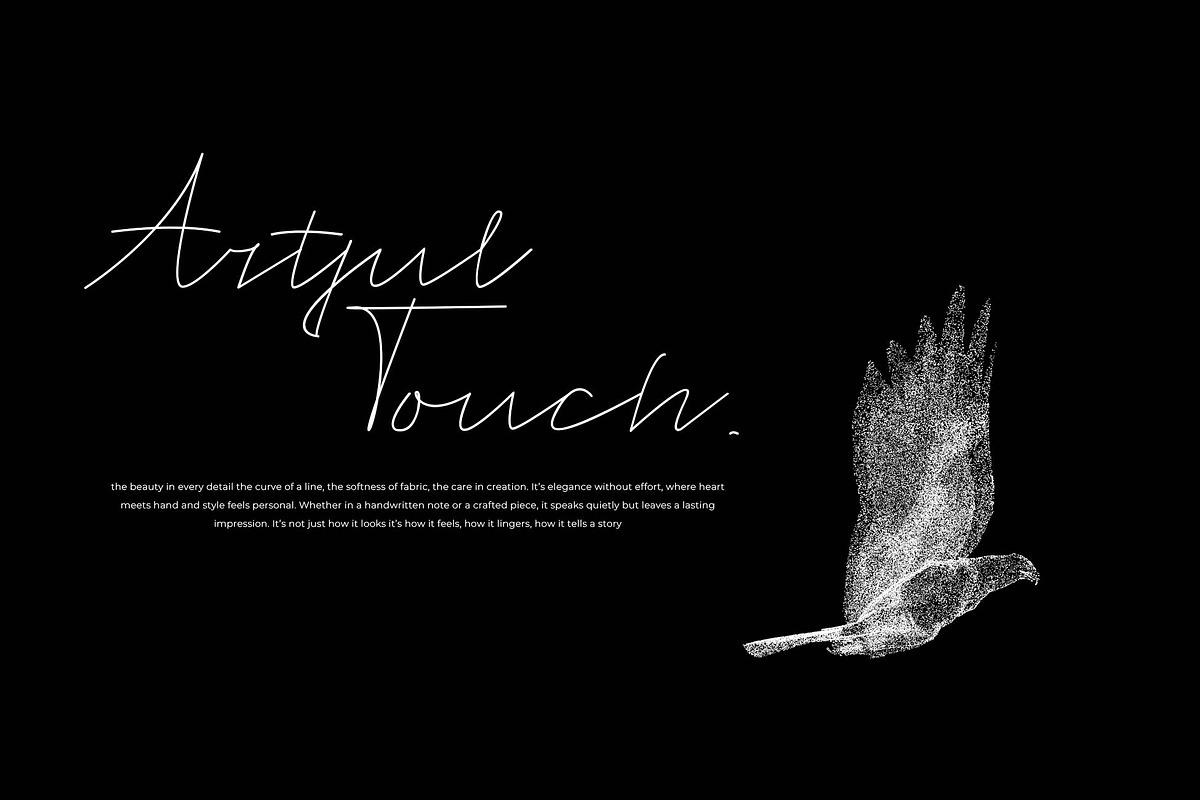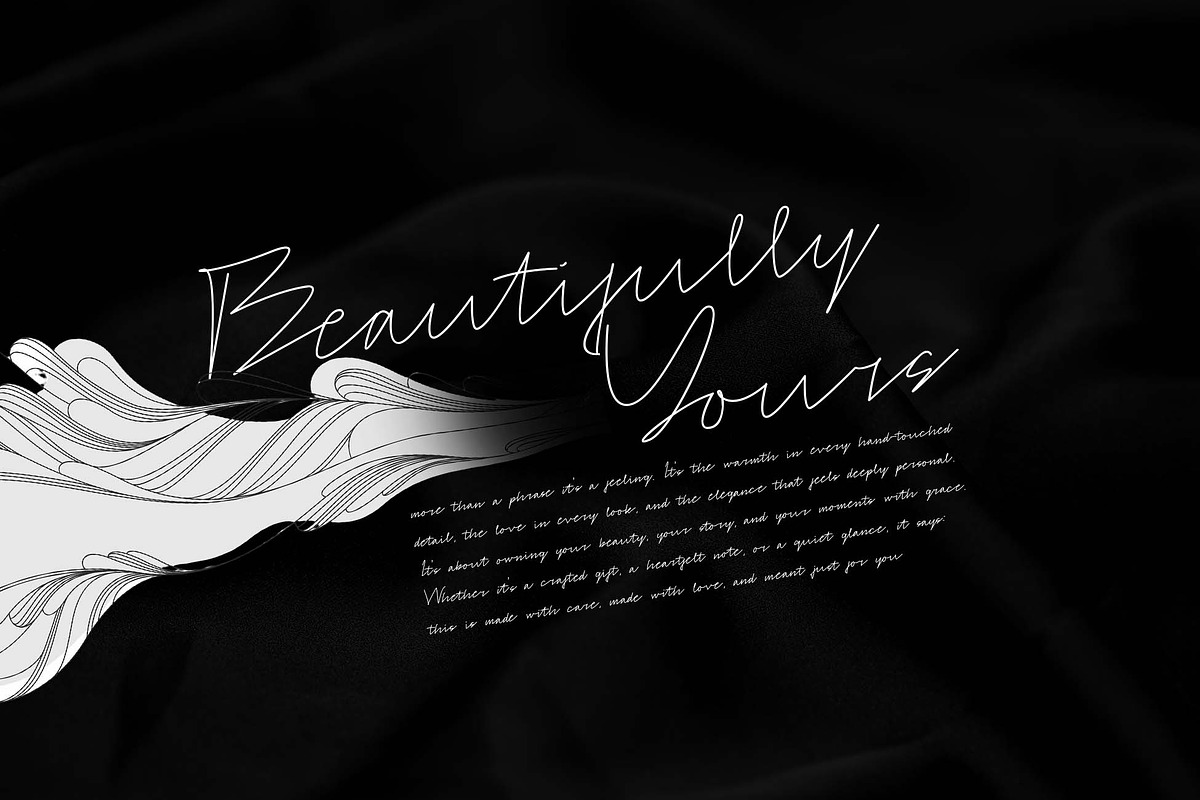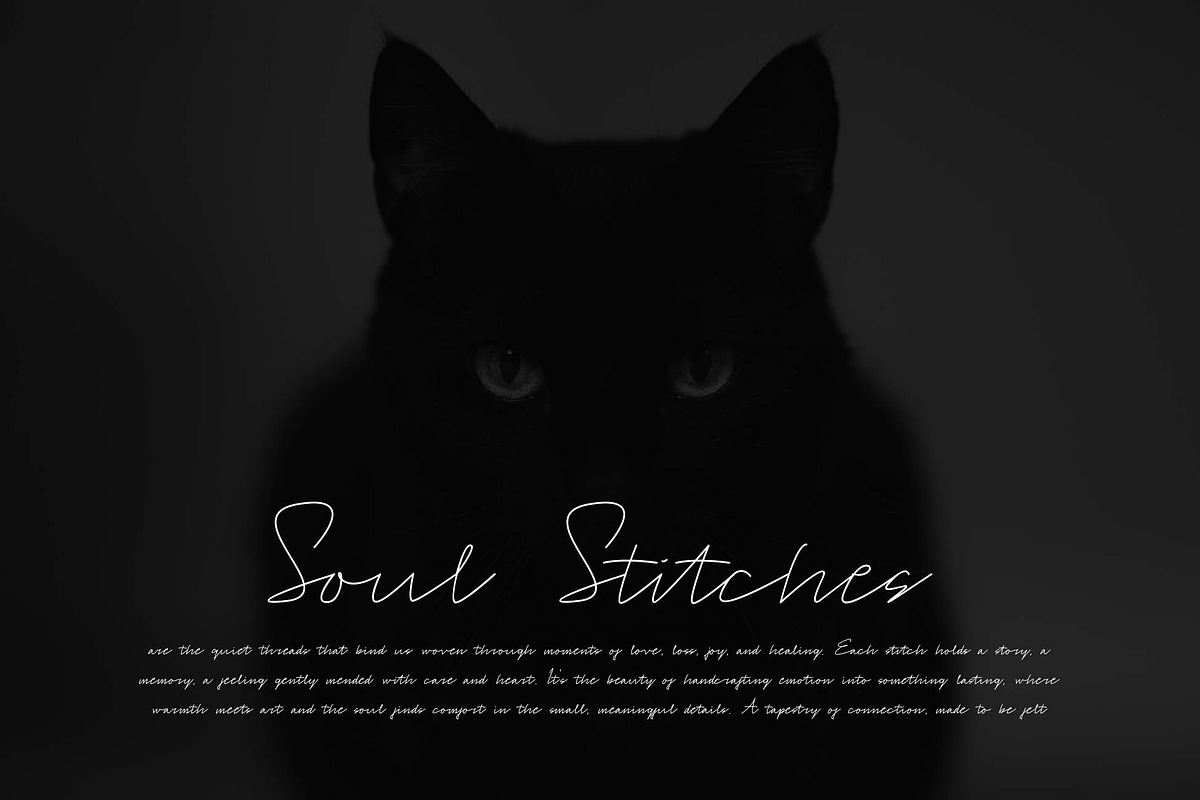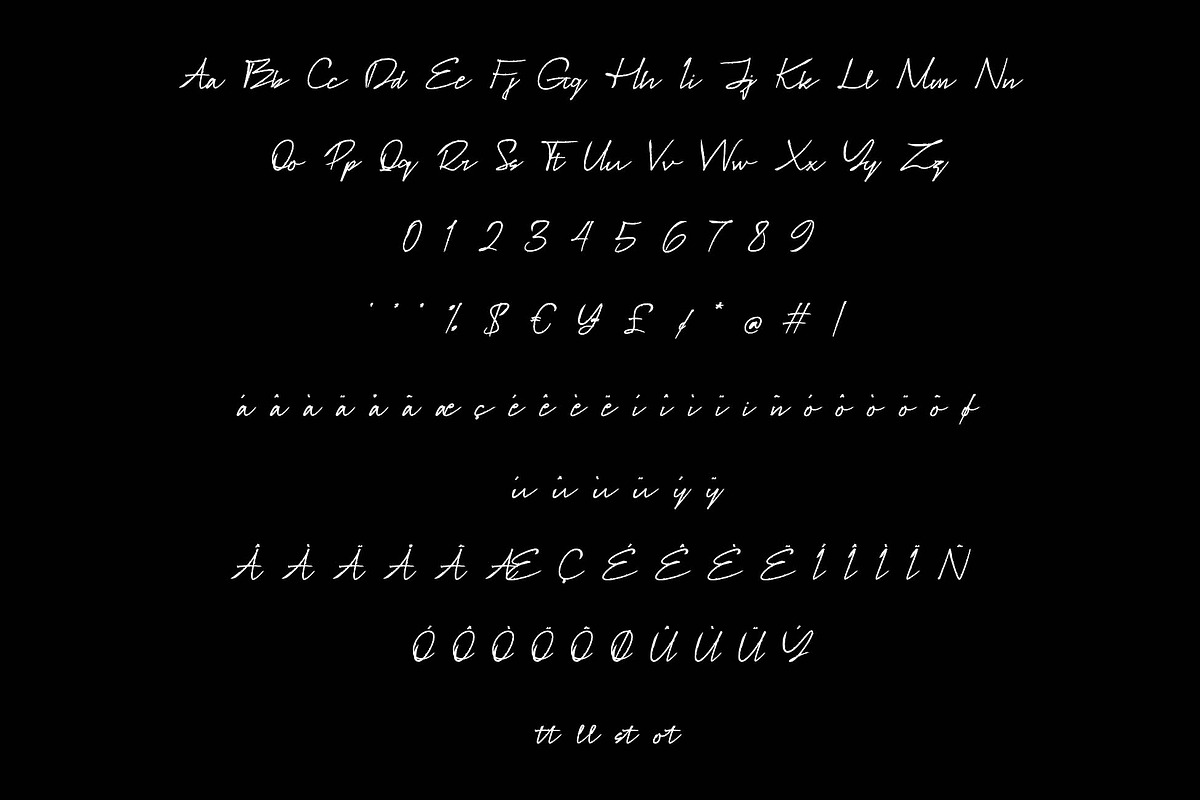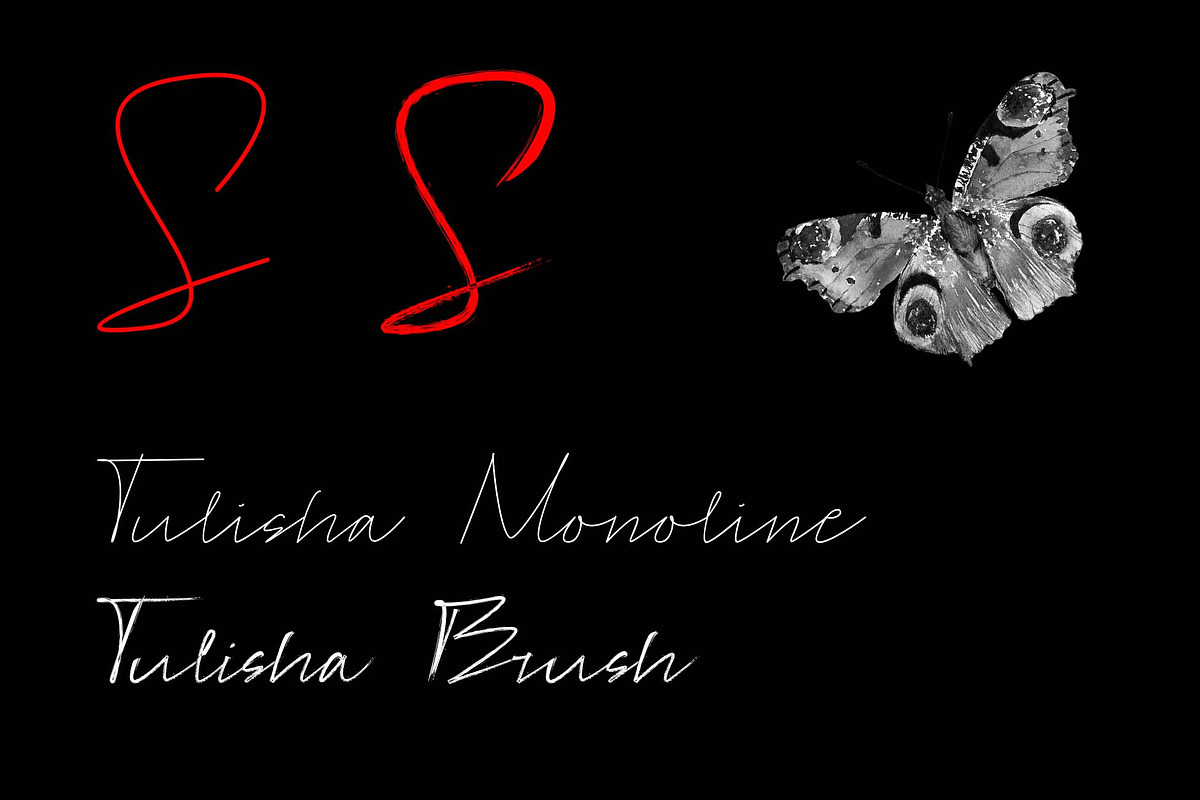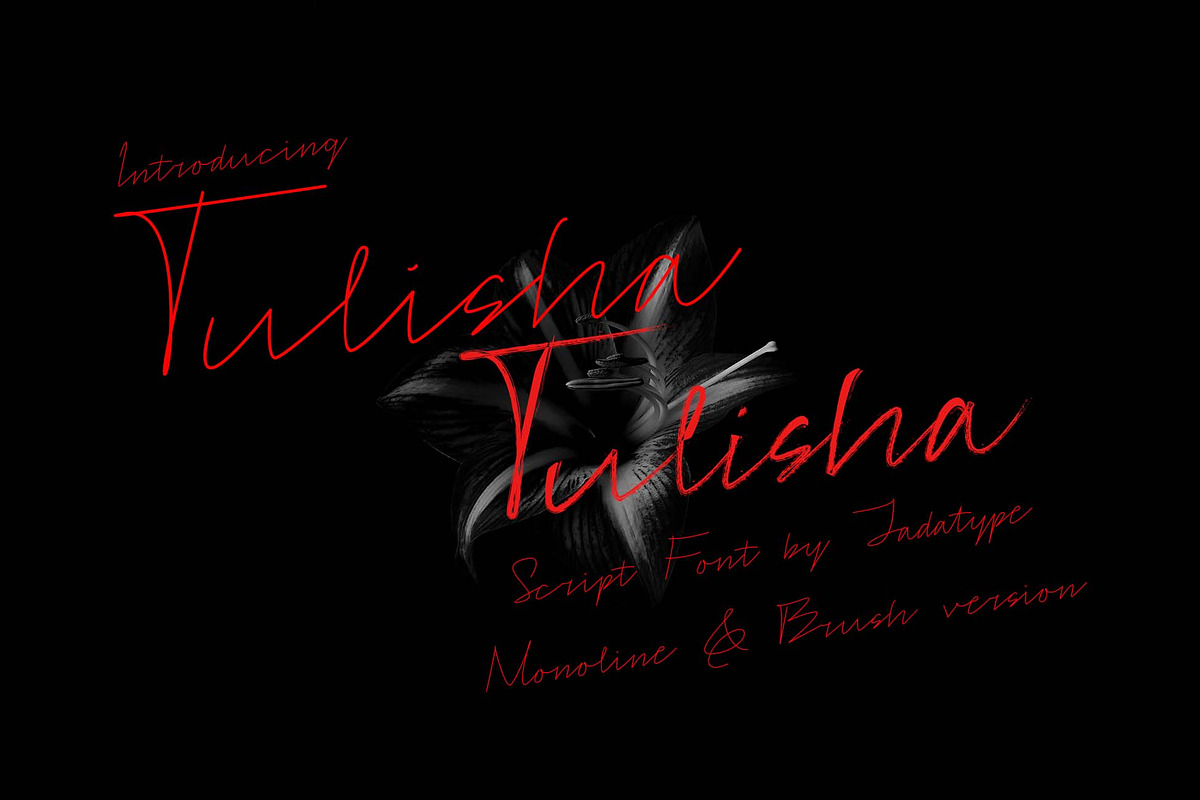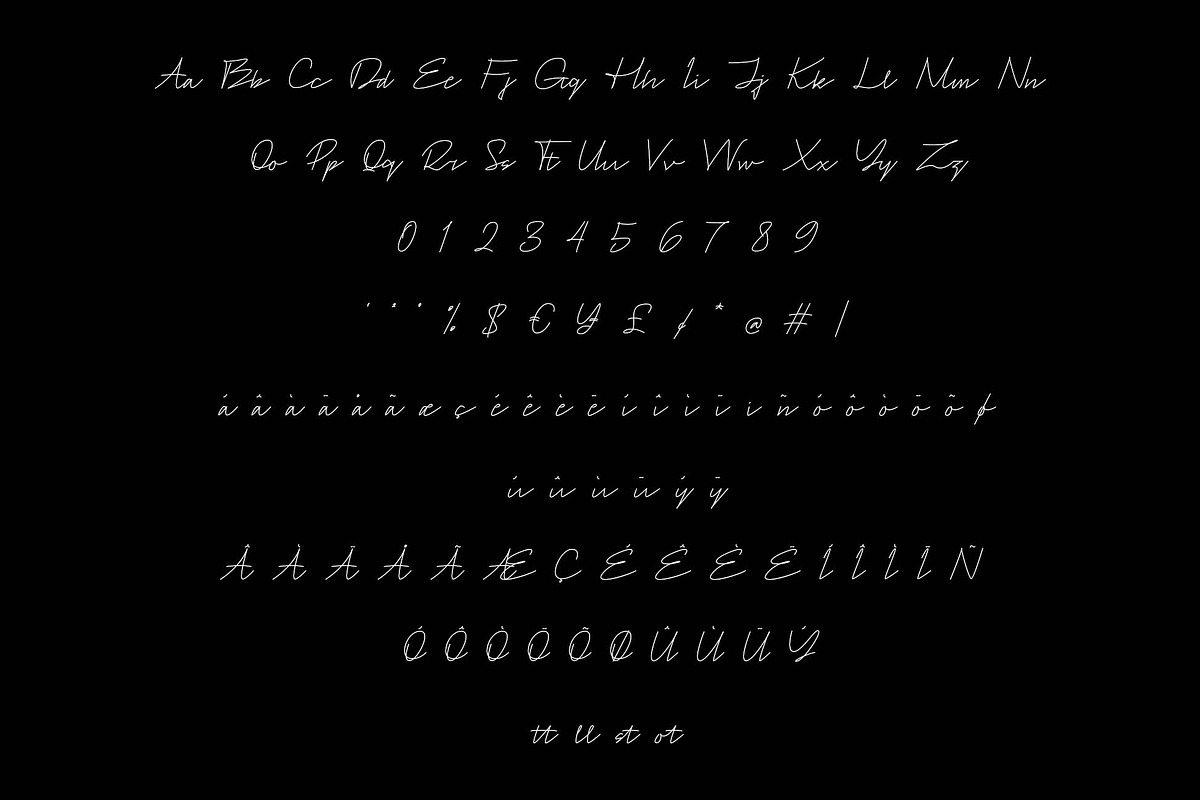
Tulisha | Monoline & Brush Script
Tulisha is a font with a natural monoline and brush script. suitable for photography, social media, music cover, branding, products, handwritten, and so on. contains standard English letters, numbers, punctuation, and several accents that support multilingualism.